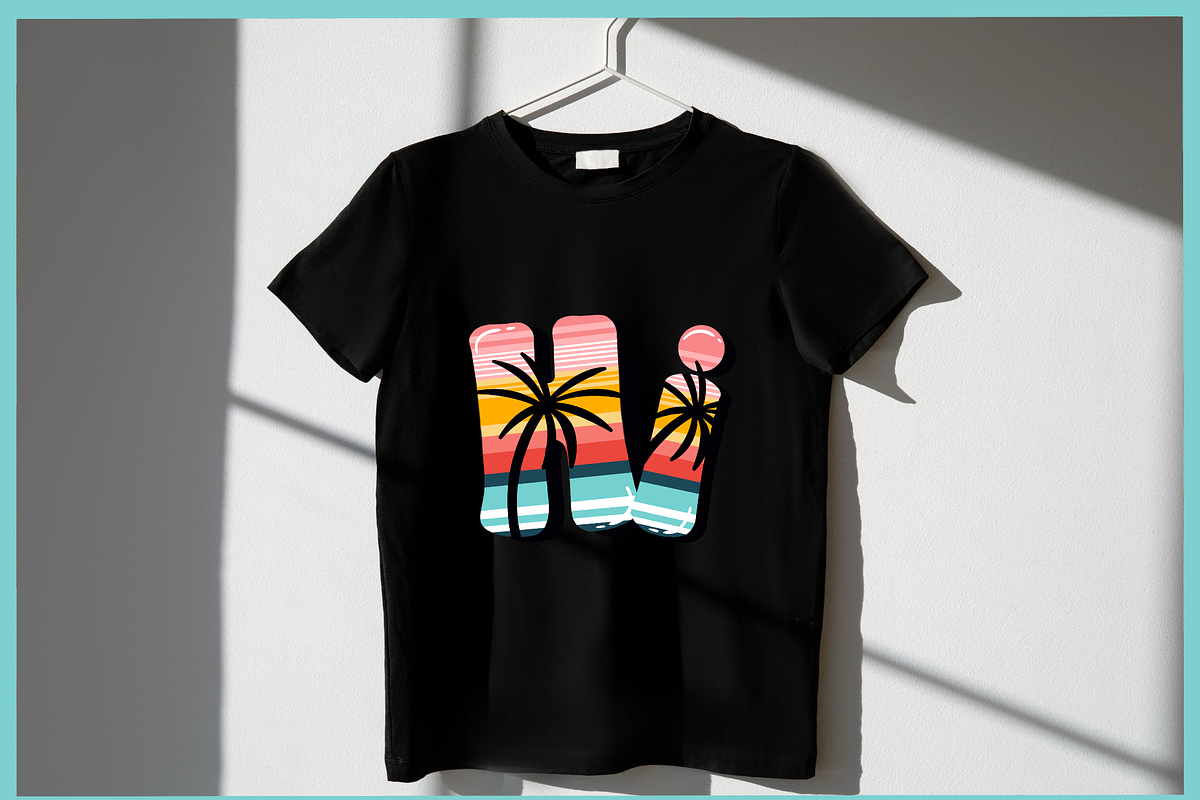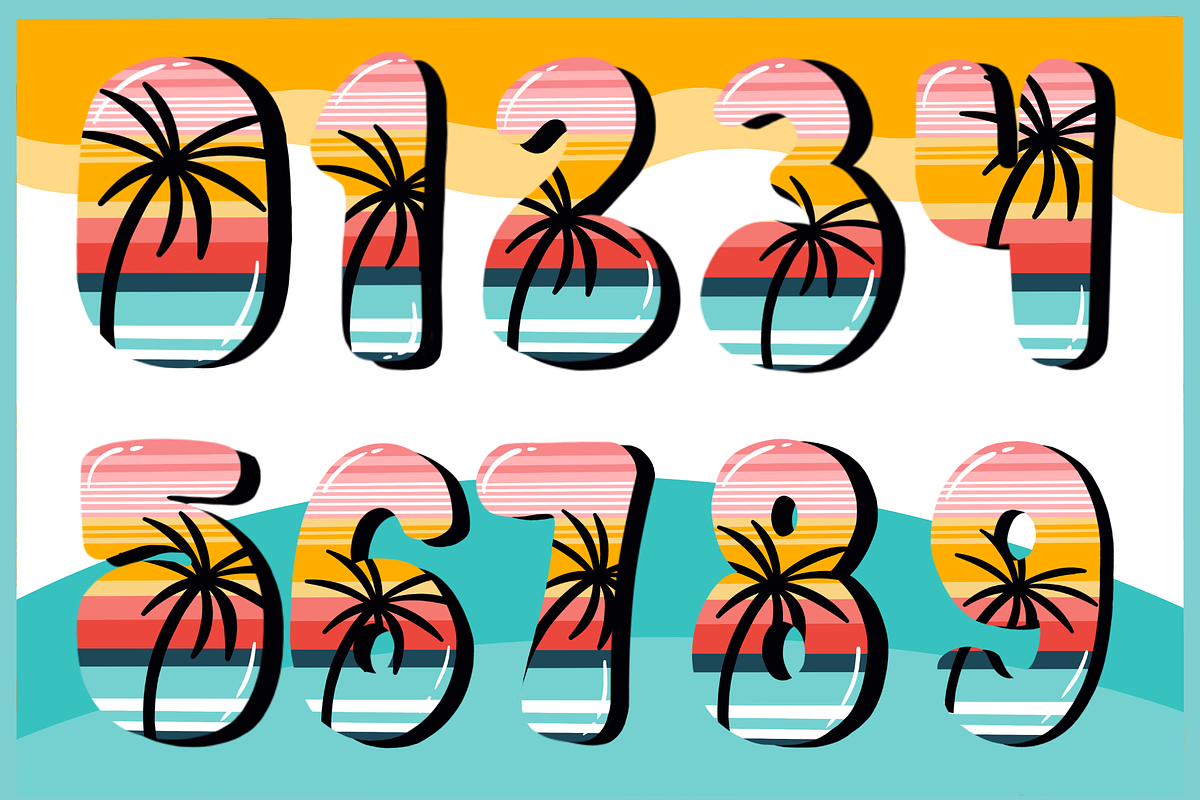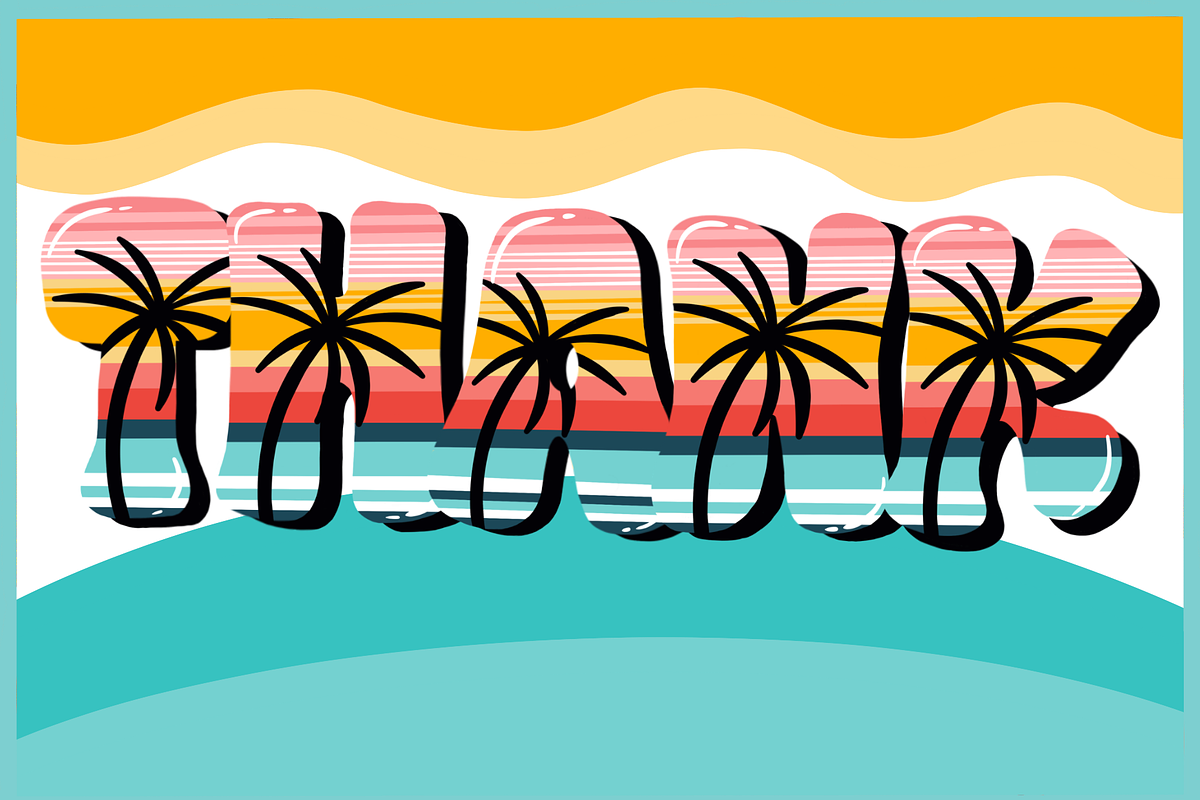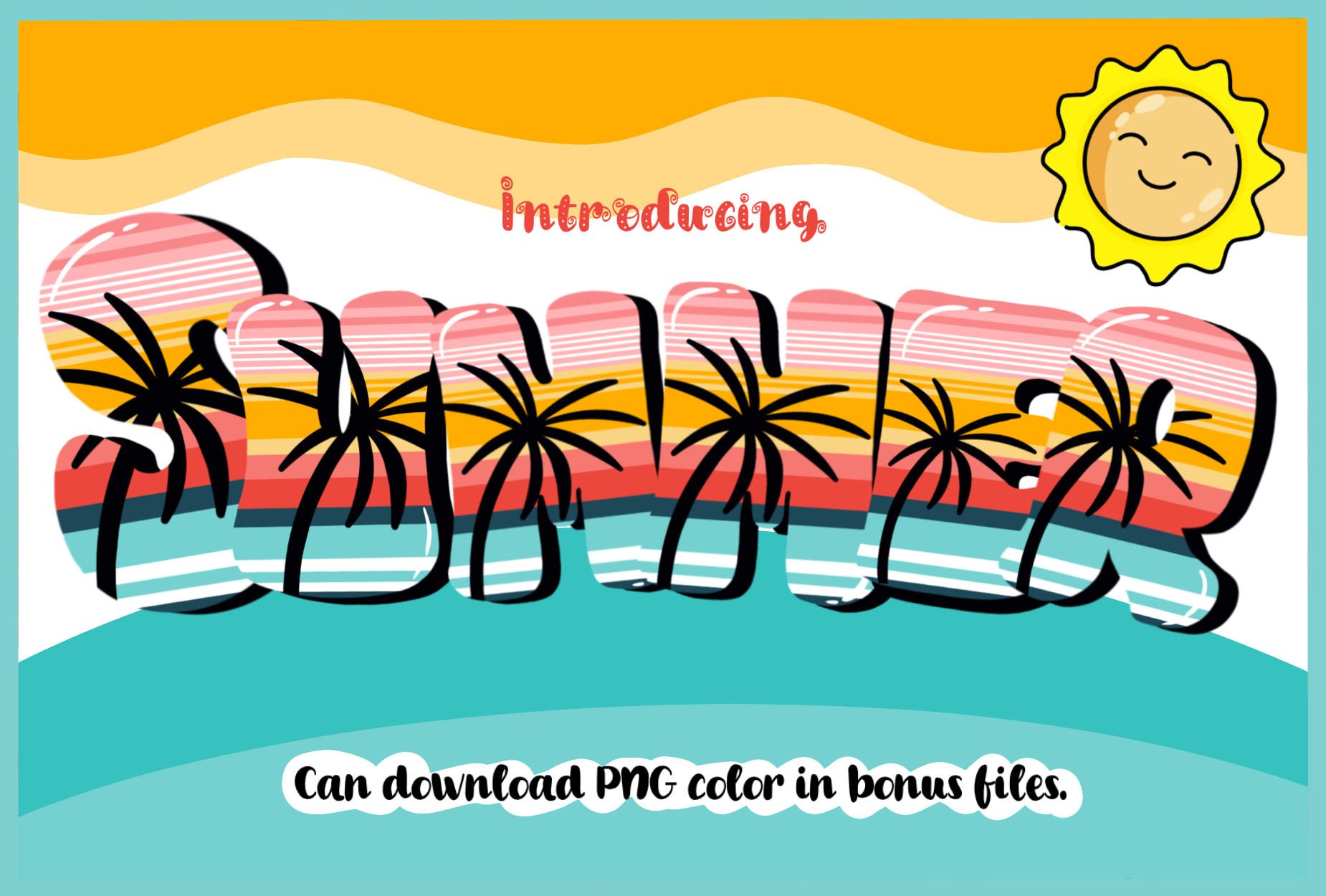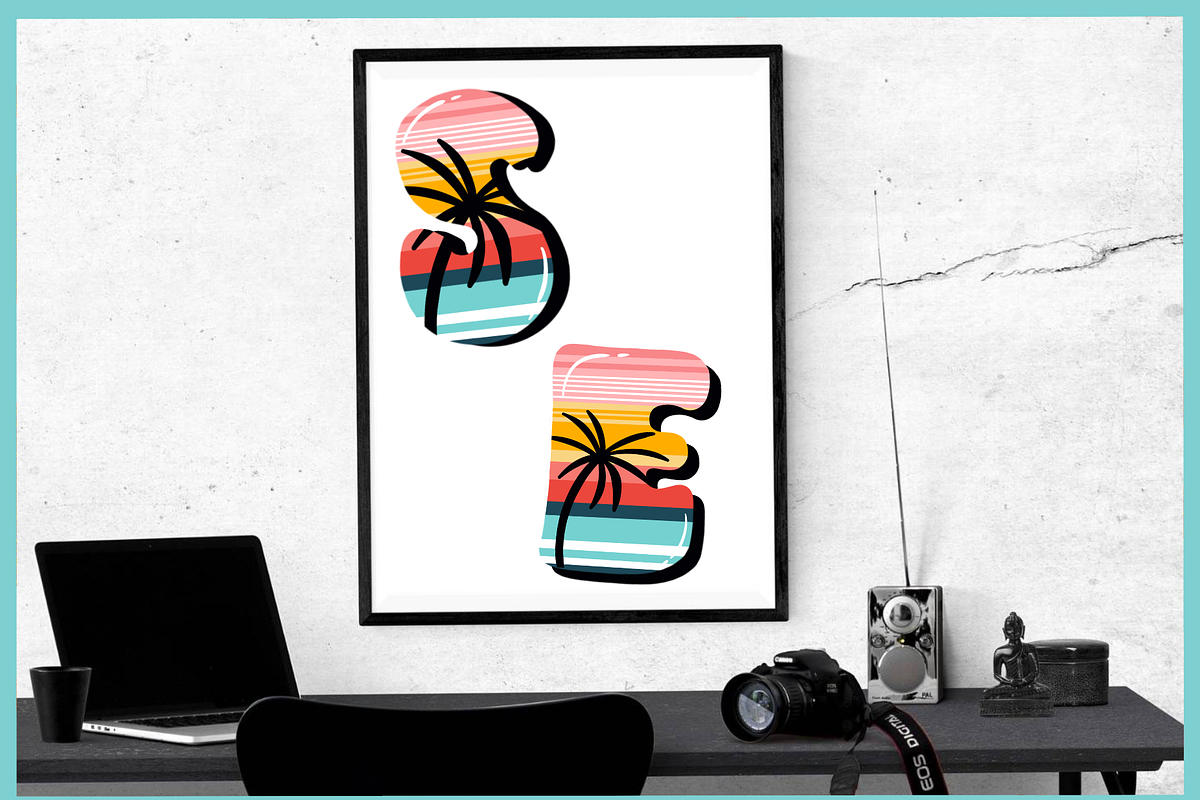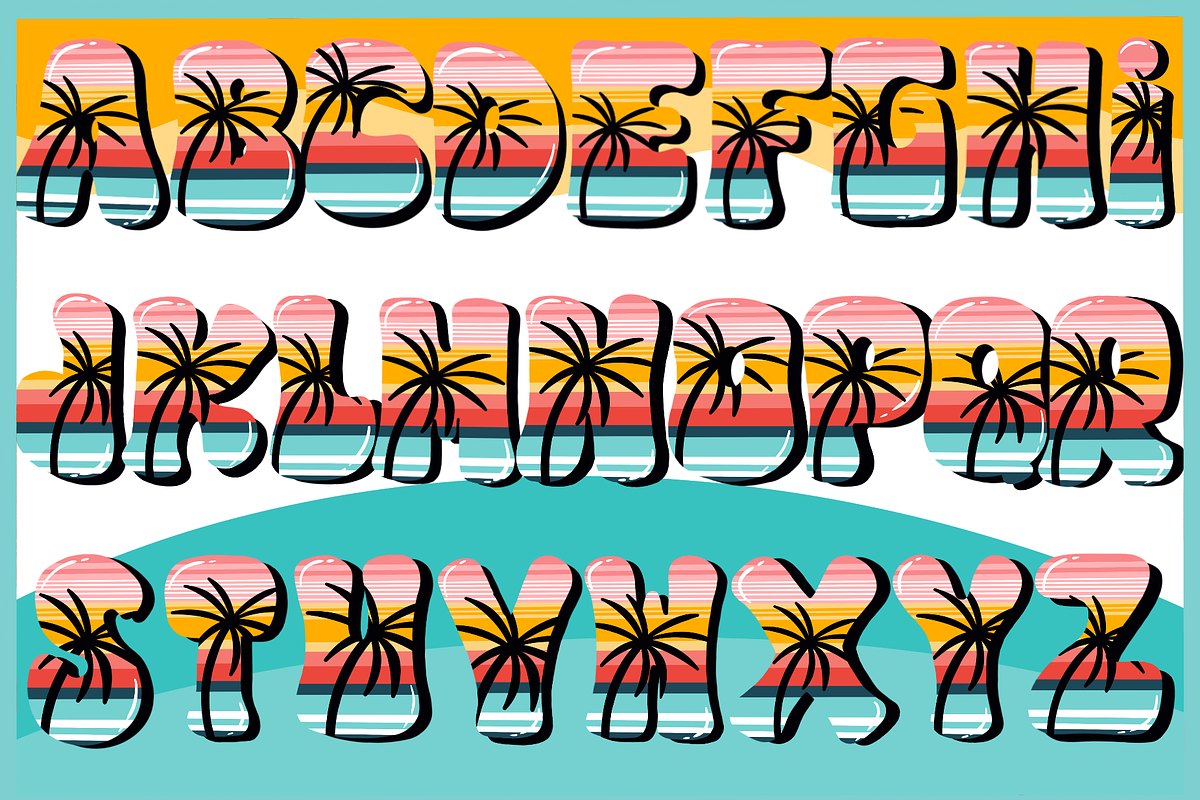
Summer-PNG fonts
Summer Font
Summer is a cheerful, fun, laid-back decorative font perfect for all your summer vacation projects. Add it to your fonts library and you won't stop using it!